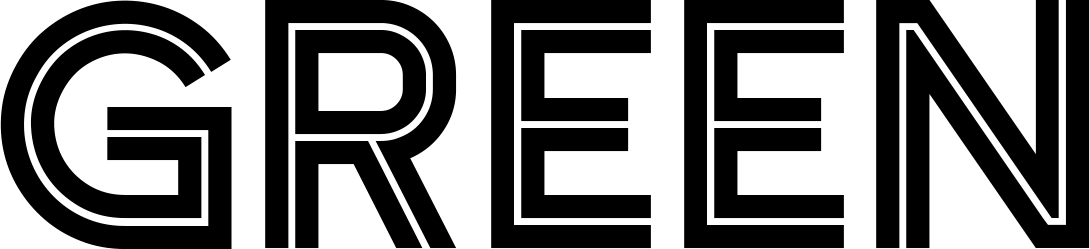
Green Font
For projects like sports shirts, bags, websites, and newspapers, athletes’ clothing, stadium billboards, you can use an inline font. From that category, Green is a great font and it can easily bring that modern and sharp mood that you are looking for to your content.
This font offers you an extraordinary collection of characters containing the uppercase f the alphabets, numbers, and punctuation marks except for the lowercase.